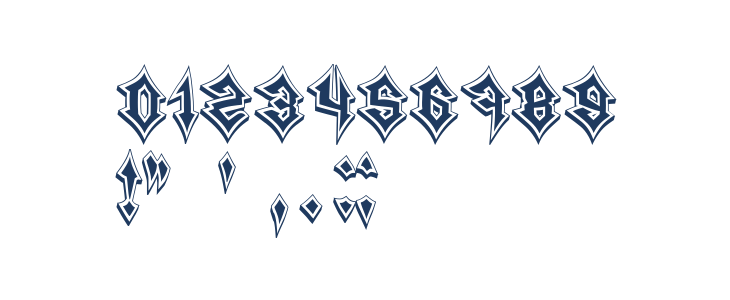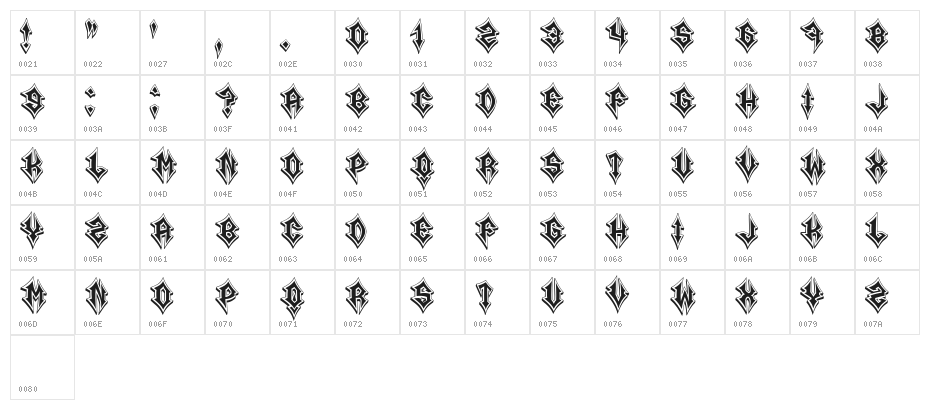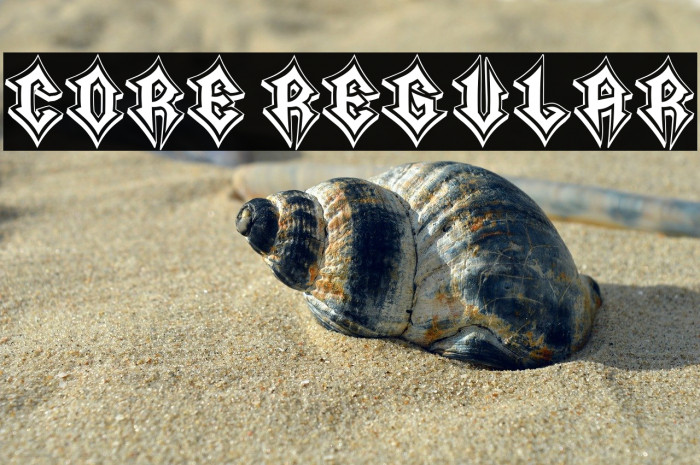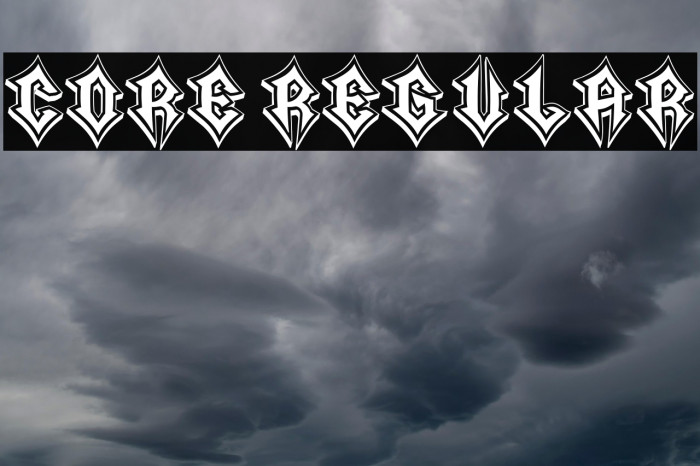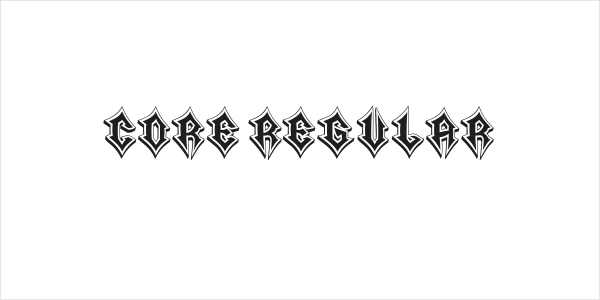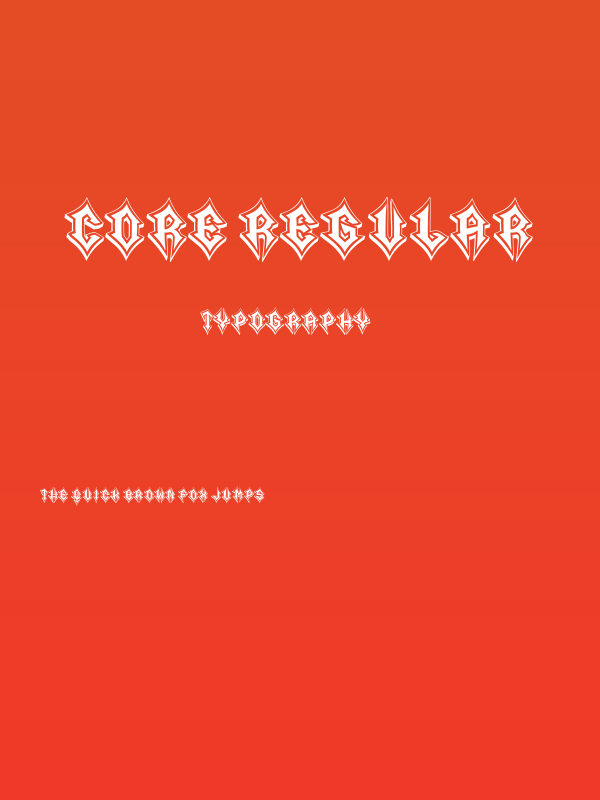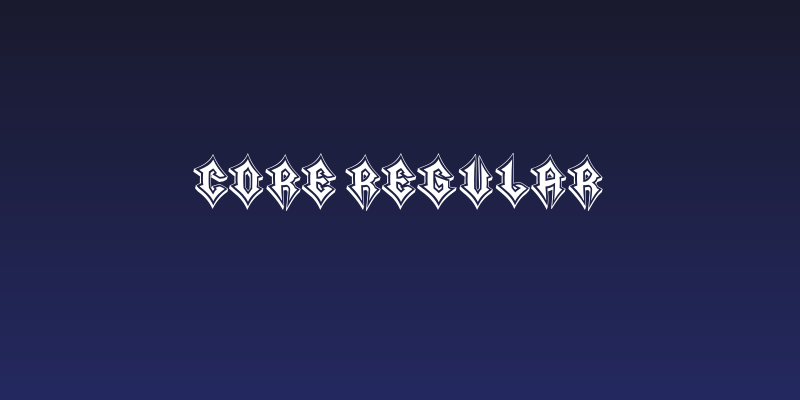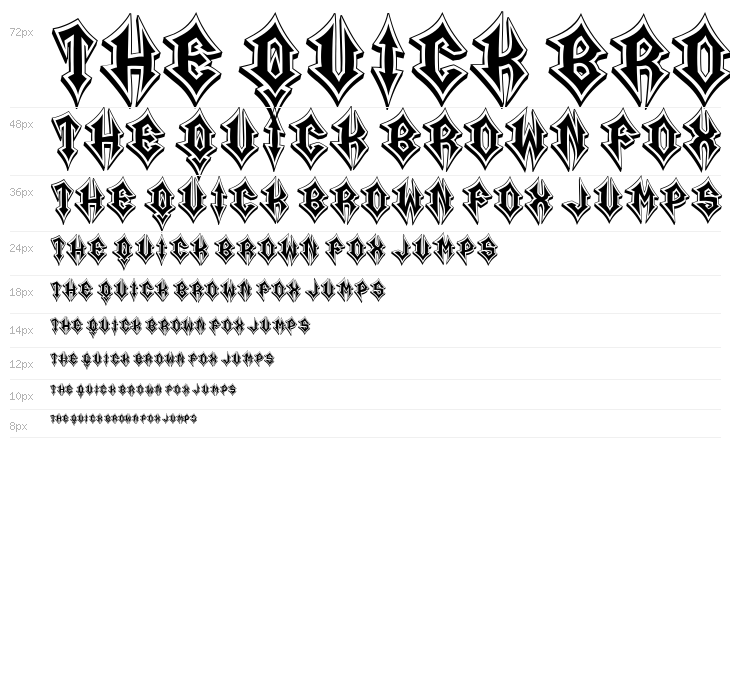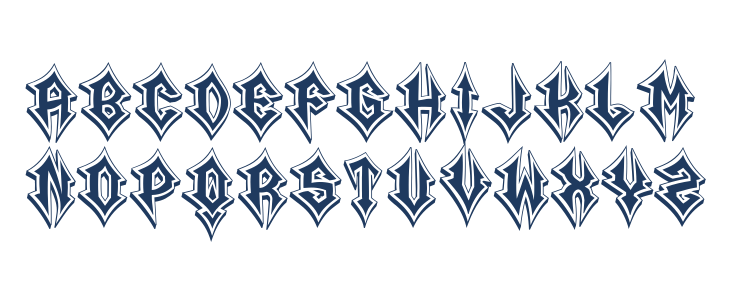
Core Regular Font
Core Regular Description
This font features a bold and striking design with sharp, angular lines and a distinct Gothic influence. Each character is outlined with a thick, black border, enhancing its dramatic appearance. The letters are highly stylized, with intricate details that give them a three-dimensional effect. The uppercase and lowercase letters maintain a consistent style, while the numbers and special characters follow the same bold and decorative theme. This font is designed to capture attention and convey a sense of strength and edginess.
| Use Case | Logos, Headlines, Posters |
| Proposed Projects | Ideal for use in tattoo designs, band logos, posters, and any project requiring a bold, edgy aesthetic. |